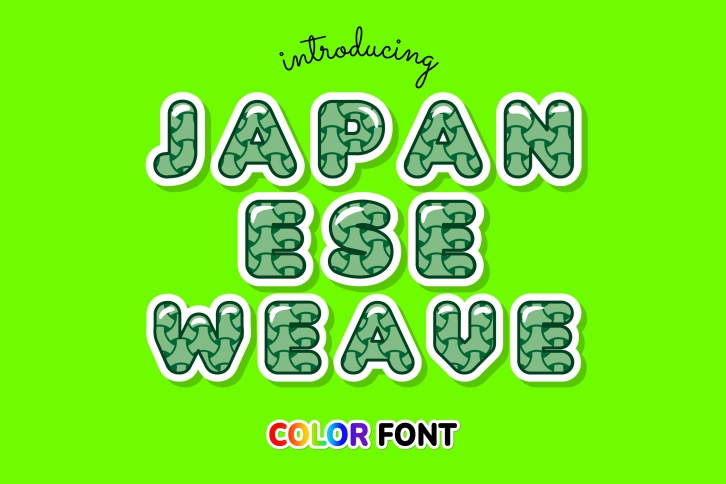
Japanese Weave is an incredibly cool color. Whether you use it for custom designs, DIY crafts, or just any creation that requires a lovely touch, this font will be an amazing choice.